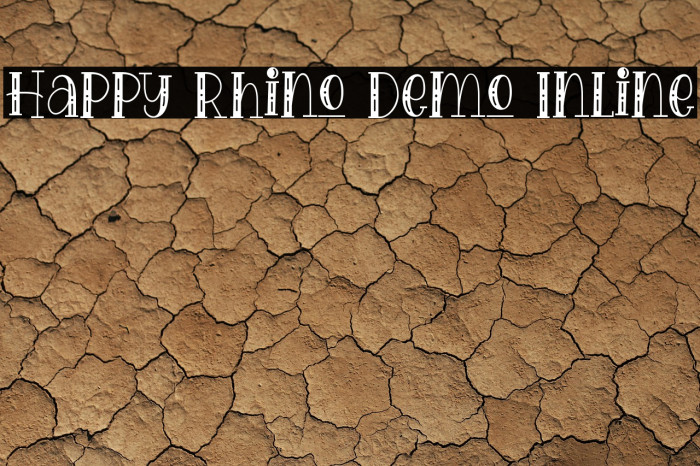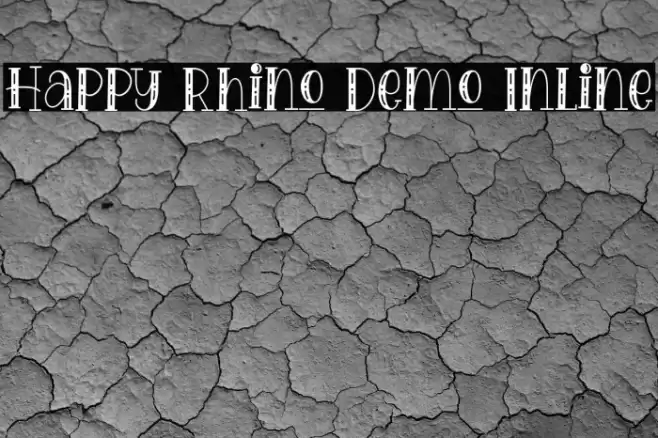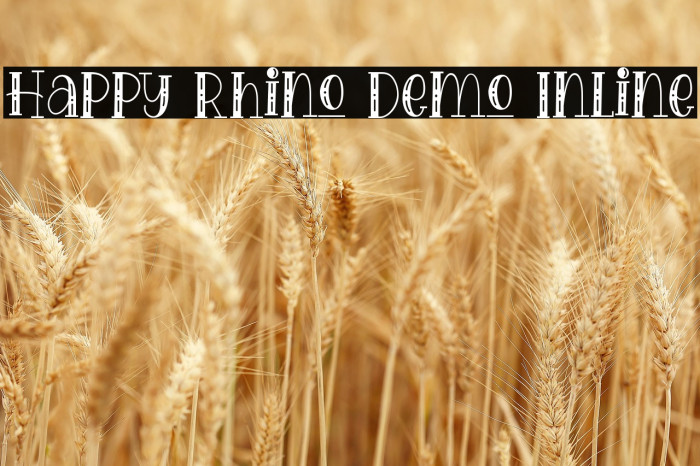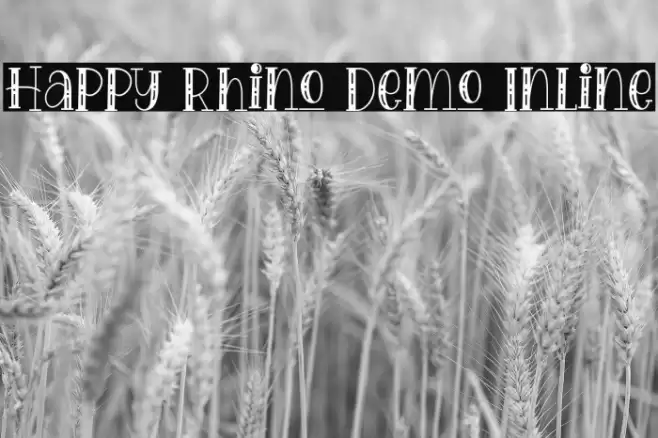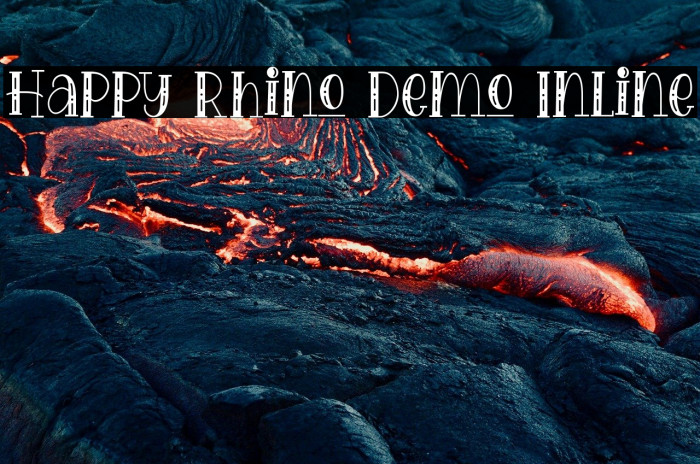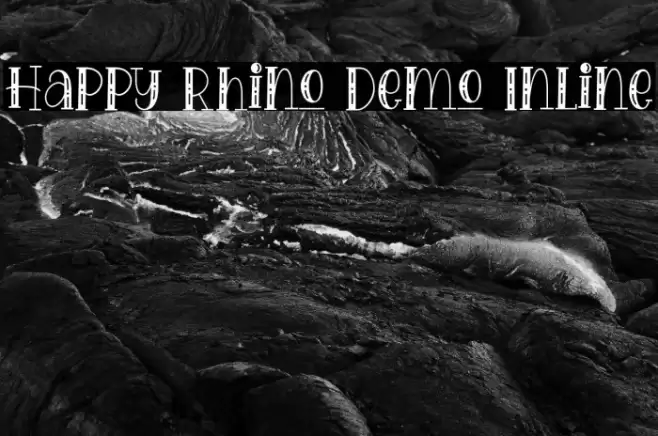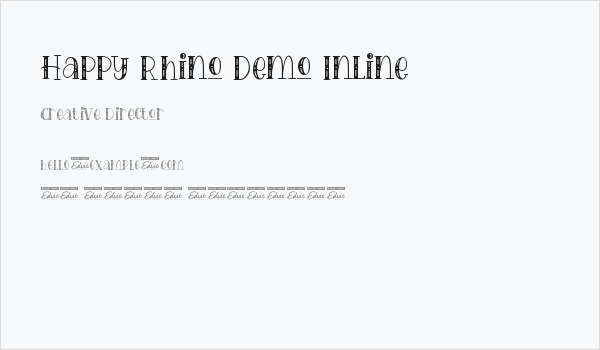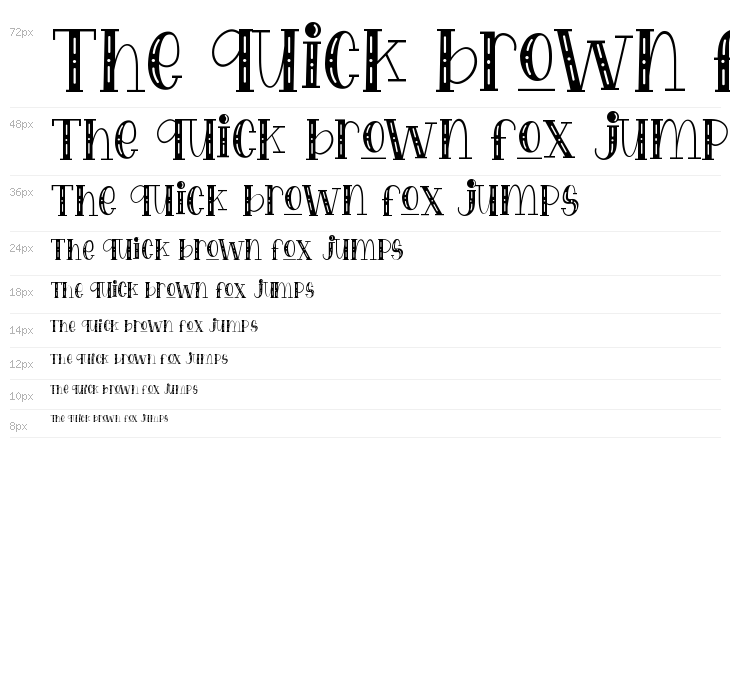
Happy Rhino Demo Inline Font
Happy Rhino Demo Inline Description
This font features a playful and decorative style, characterized by its unique inline design. The uppercase letters are bold and structured, with a whimsical touch that includes dotted inlines, adding a sense of fun and creativity. The lowercase letters maintain a similar playful aesthetic, with a slightly more casual and rounded appearance. The font's overall design is eye-catching and suitable for projects that require a lively and engaging typeface. Its distinctive style makes it ideal for creative and artistic applications, where a touch of personality is desired.
| Proposed Projects | Ideal for children's book covers, playful branding, event invitations, and creative posters. |